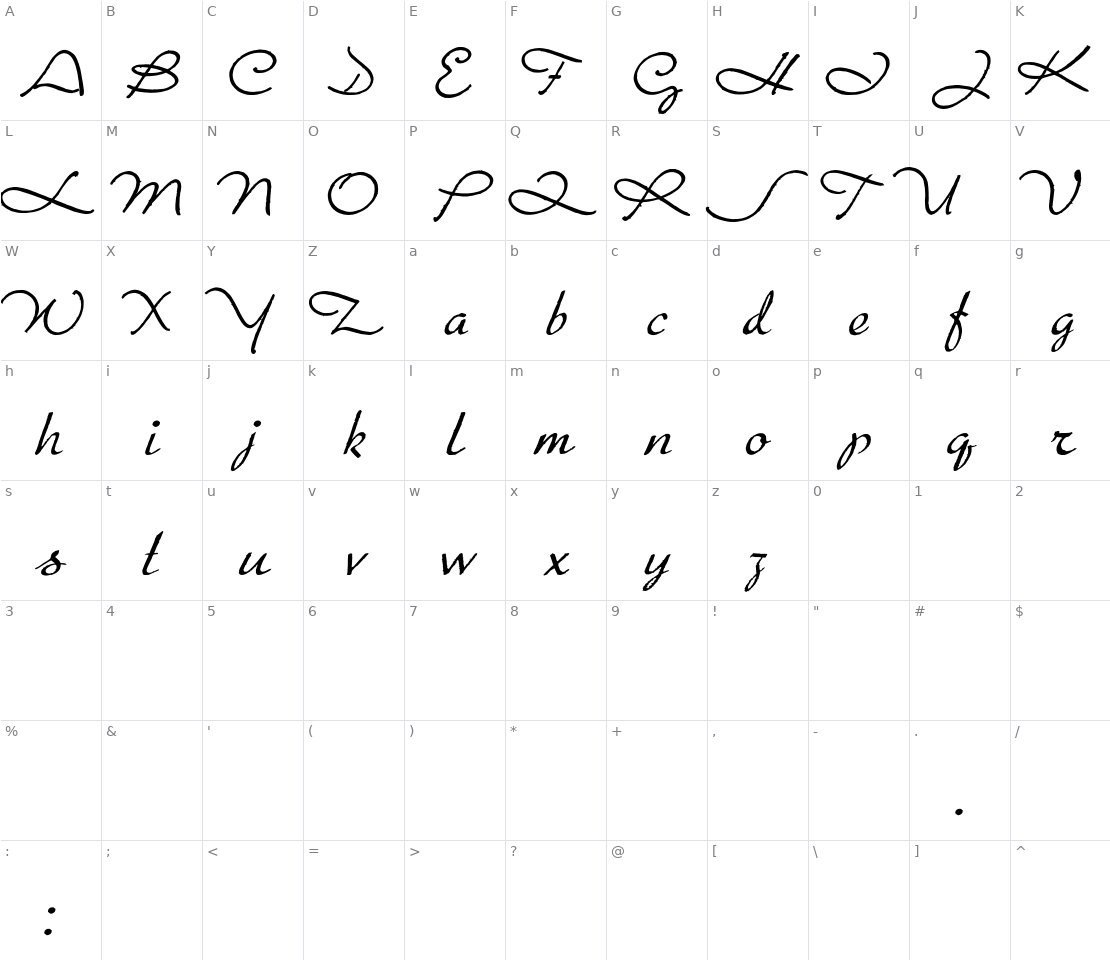
Porosa
Porosa is a flowing cursive from Intellecta Design with the graceful slant and ink variation of a practiced hand writing with a flexible pen nib. The letterforms feel vintage and unhurried, carrying an elegance that stays rooted in real penmanship rather than formal calligraphy. A good fit for invitations, editorial accents, and branding that calls for something personal with a touch of old-world refinement.